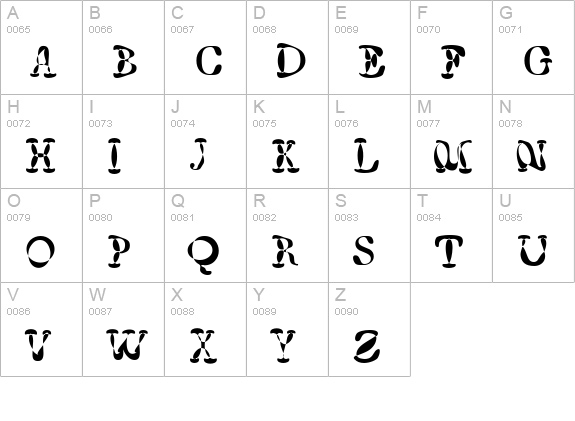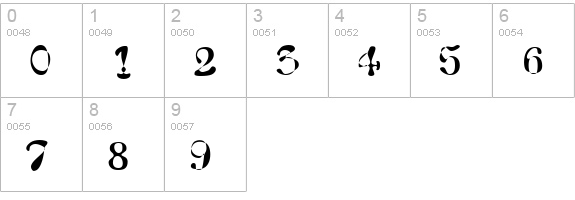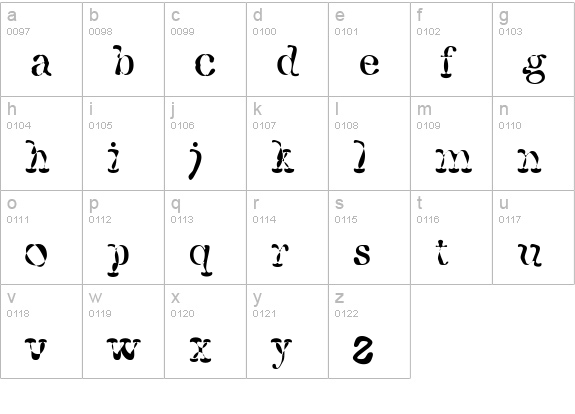
F 2FWhaleTreeRnd Font Details
Introducing F 2FWhaleTreeRnd, a captivating and versatile font that effortlessly combines elegance with a touch of whimsy. With its graceful curves and playful accents, this font is sure to make a lasting impression on any project. Designed with meticulous attention to detail, F 2FWhaleTreeRnd offers a wide range of characters that are both eye-catching and legible. Its unique style and enchanting aura make it perfect for a variety of creative endeavors, be it designing logos, crafting invitations, or adding an artistic flair to your next advertisement. But what sets F 2FWhaleTreeRnd apart is not just its stunning aesthetics, but also its accessibility. This font is available for free download at FontsMarket.com, allowing designers, artists, and enthusiasts alike to unleash their creativity without any barriers. Embracing the spirit of inclusivity, F 2FWhaleTreeRnd invites everyone to explore and experiment with its endless possibilities. Whether you're a seasoned professional or a budding designer, F 2FWhaleTreeRnd provides a seamless experience, ensuring that your ideas come to life effortlessly. Its versatility allows you to convey a wide range of emotions, from elegance and sophistication to playfulness and charm. So why wait? Dive into the world of F 2FWhaleTreeRnd and let your imagination run wild. Download this extraordinary font for free at FontsMarket.com today and discover a whole new level of design possibilities. Unleash your creativity and make a statement with F 2FWhaleTreeRnd – the font that combines beauty, charm, and accessibility in one remarkable package.